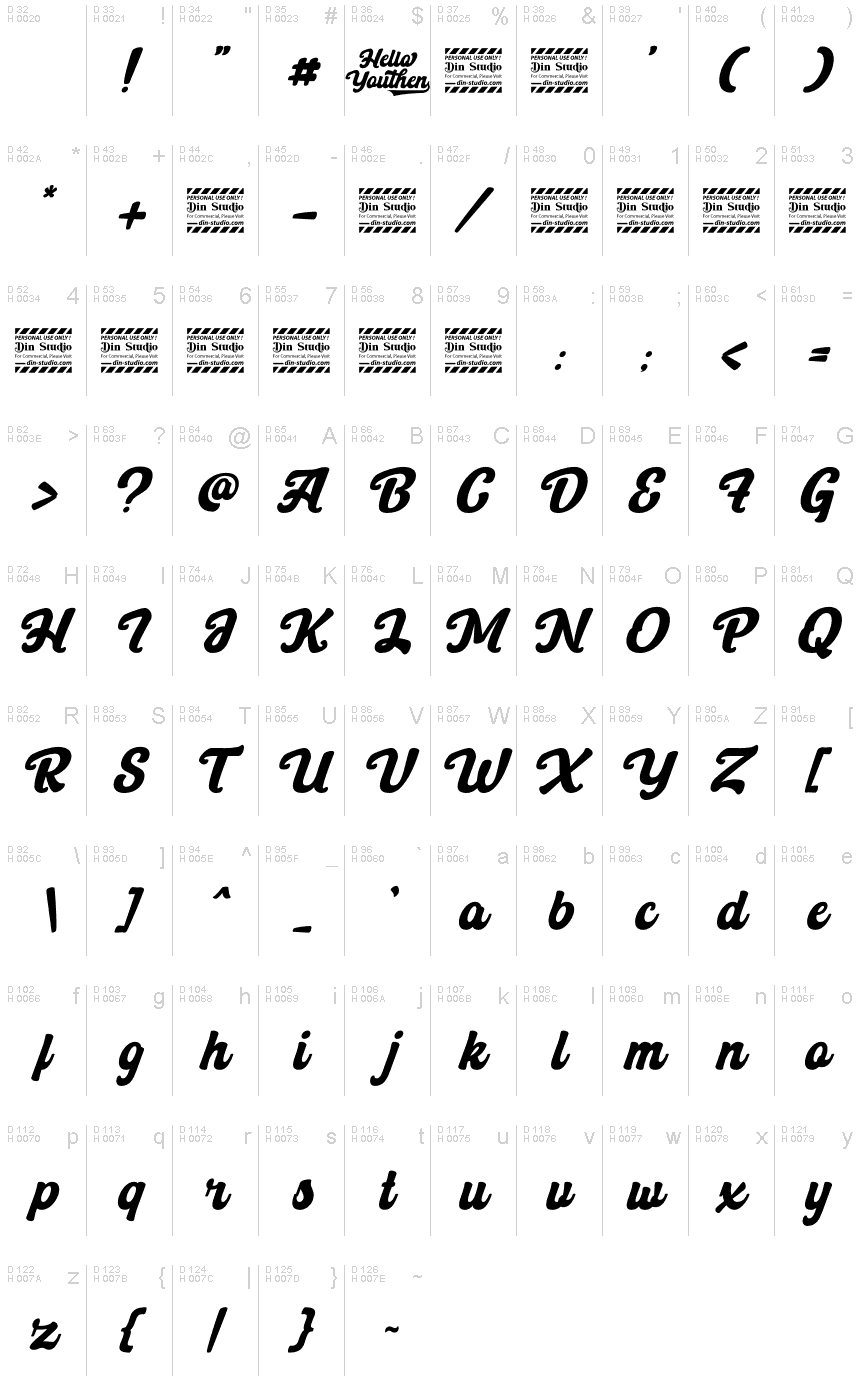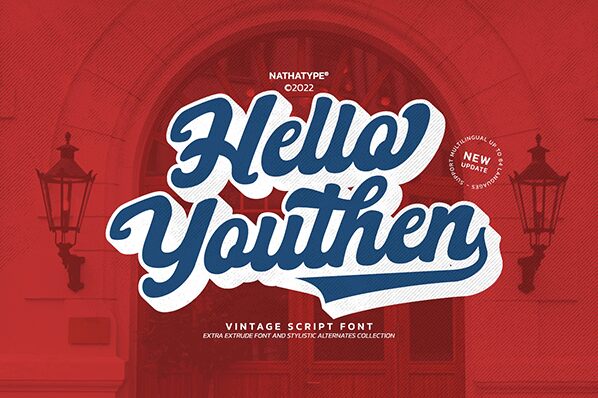
Hello Youthen Personal Use
Hello Youthen is a bold, vintage smooth brush font designed by Din Studio. With its unique style, this font is perfect for projects that require a touch of retro flair. Its bold weight makes it ideal for headlines, logos and branding materials that need to stand out. Use Hello Youthen to add personality to your designs and convey a sense of nostalgia. This font pairs well with handwritten scripts or sans-serifs for contrast. Whether you're working on a vintage-inspired poster or a modern website design, Hello Youthen is the perfect typeface to add character and style to your project.